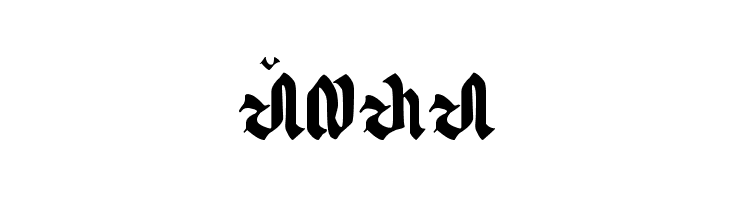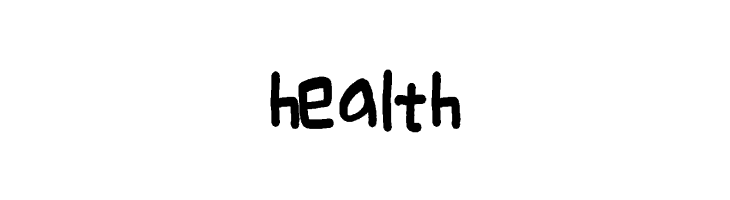
Bold, rounded comic-style sans-serif font with a playful feel.
A decorative script inspired by traditional Balinese styles with intricate curves and flourishes.
A playful, hand-drawn font with a whimsical and informal style.
A decorative and traditional Sundanese script with intricate and flowing letterforms.
An elegant, calligraphic font with artistic curves and sharp angles.
A playful, hand-drawn font with rounded, informal characters.
A bold, expressive script font with flowing, cursive letterforms.
A bold, dynamic script font with fluid, cursive strokes and high contrast.
A flowing, cursive script font with elegant loops and swashes.
An elegant and flowing script font with classic cursive letterforms.
A bold, cursive font with a flowing, handwritten style.
A bold, elegant script font with flowing, interconnected letters and high contrast.
A playful, bold handwritten font with flowing, connected letters.
A cursive, handwritten-style font with elegant, flowing strokes.
A playful and energetic script font with flowing, cursive letters.
A bold, brush script font with an expressive and artistic style.
A playful handwritten font with fluid, dynamic strokes and a casual style.
A bold, blackletter-style font with sharp, angular lines and intricate details.
An elegant, flowing script font with thin, elongated strokes and artistic flair.
A modern, bold sans-serif font with a clean and slightly condensed style.